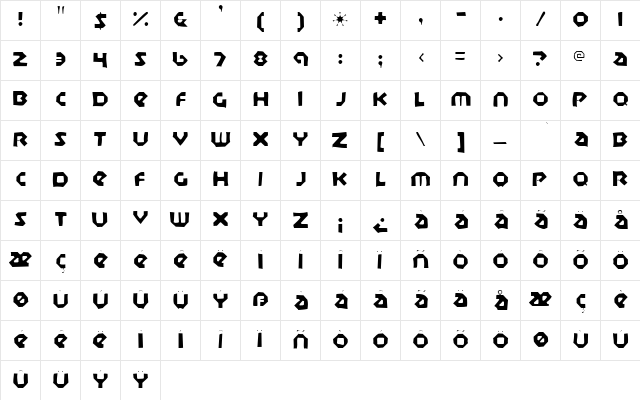
Sudbury Basin Gaunt Regular
Design Context for Sudbury Basin Gaunt Typeface
Sudbury Basin Gaunt is a composed and adaptable typeface that performs quietly and consistently across a wide range of design contexts.